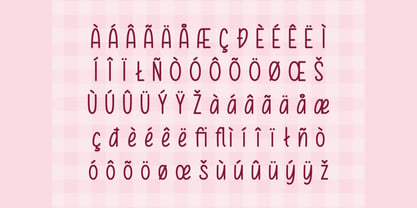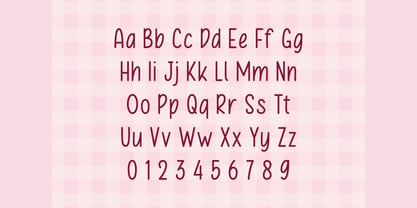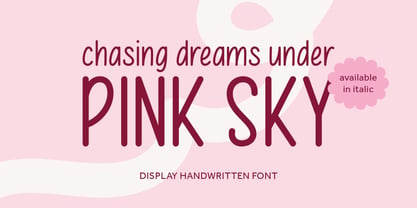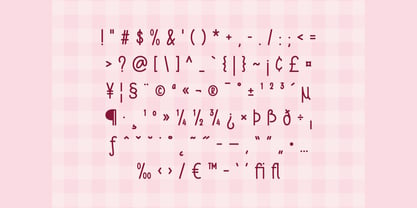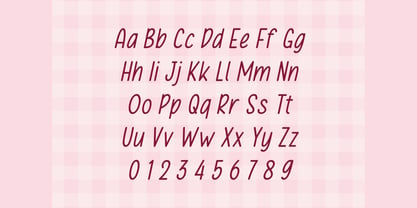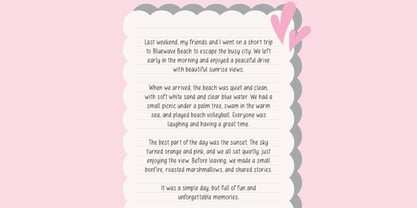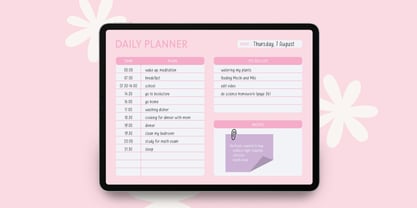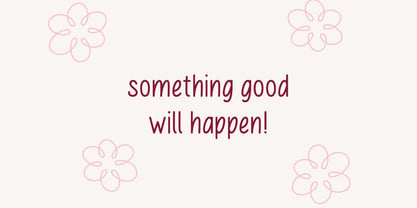
Pink Sky
by Pikgura Type
The Pink Sky Font Family was designed by Acmarsita Caerola and published by Pikgura Type. Pink Sky contains 2 styles and family package options. More about this family
Pink Sky is a handcrafted display typeface that blends casual elegance with playful energy. Its smooth curves and gentle strokes evoke a sense of warmth and sincerity, making it ideal for designs that aim to feel personal, joyful, and approachable.
Whether you're designing for lifestyle brands, greeting cards, social media graphics, or children’s products, Pink Sky adds a soft and expressive touch. The font’s handwritten character brings authenticity and charm to every layout, while maintaining clarity and balance across styles.
Pink Sky is perfect for creatives who want their typography to feel heartfelt and visually engaging. It pairs beautifully with minimalist sans-serifs or layered illustrations, offering flexibility across both print and digital platforms.